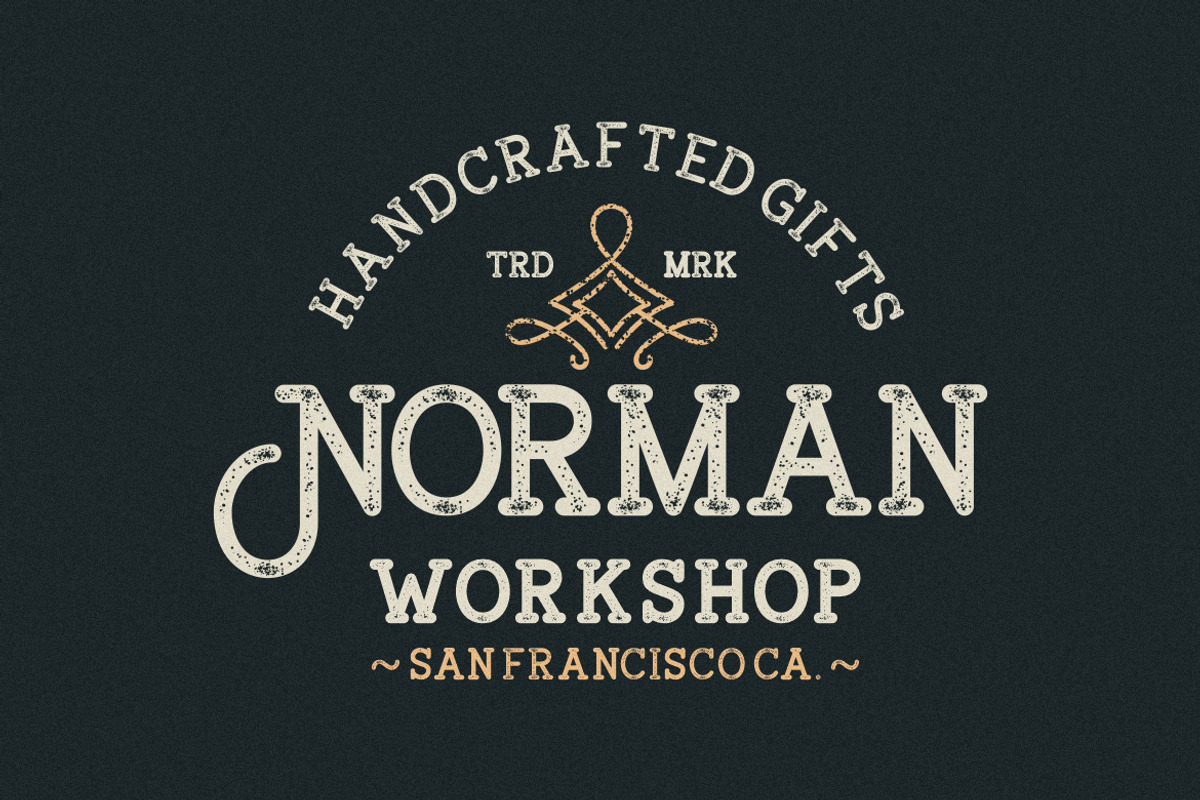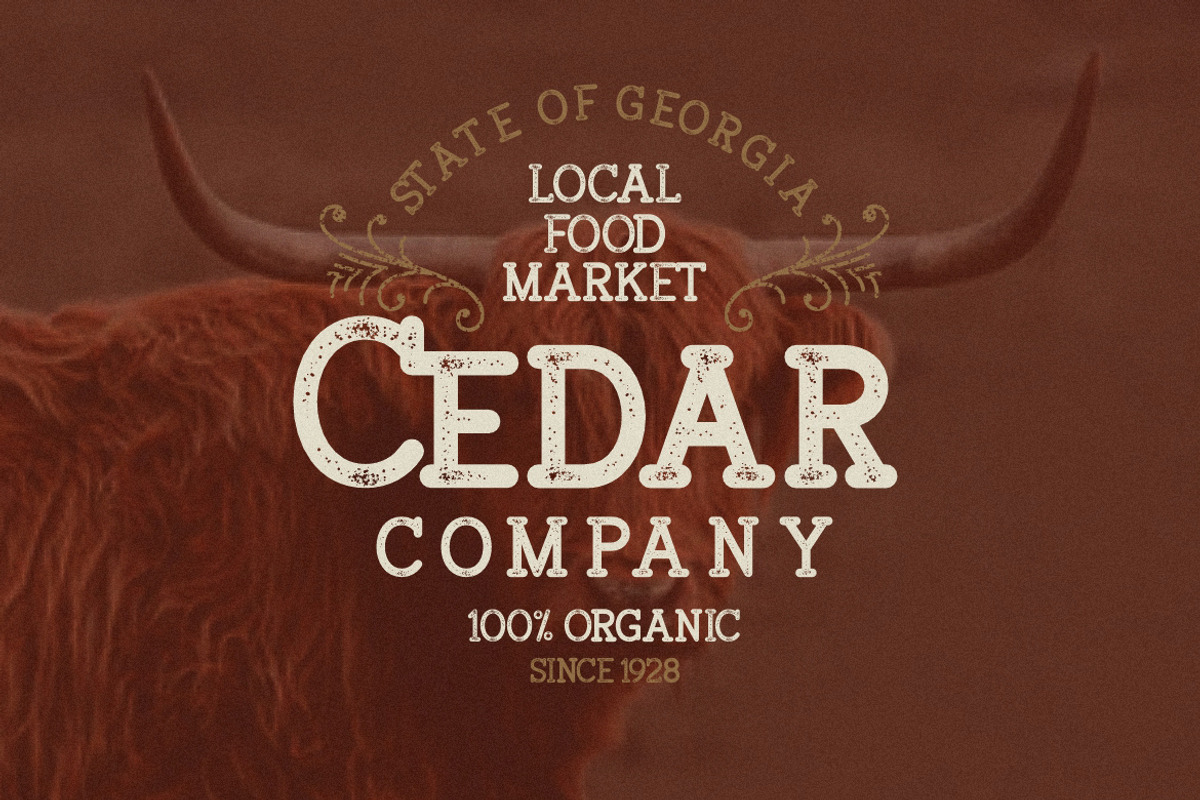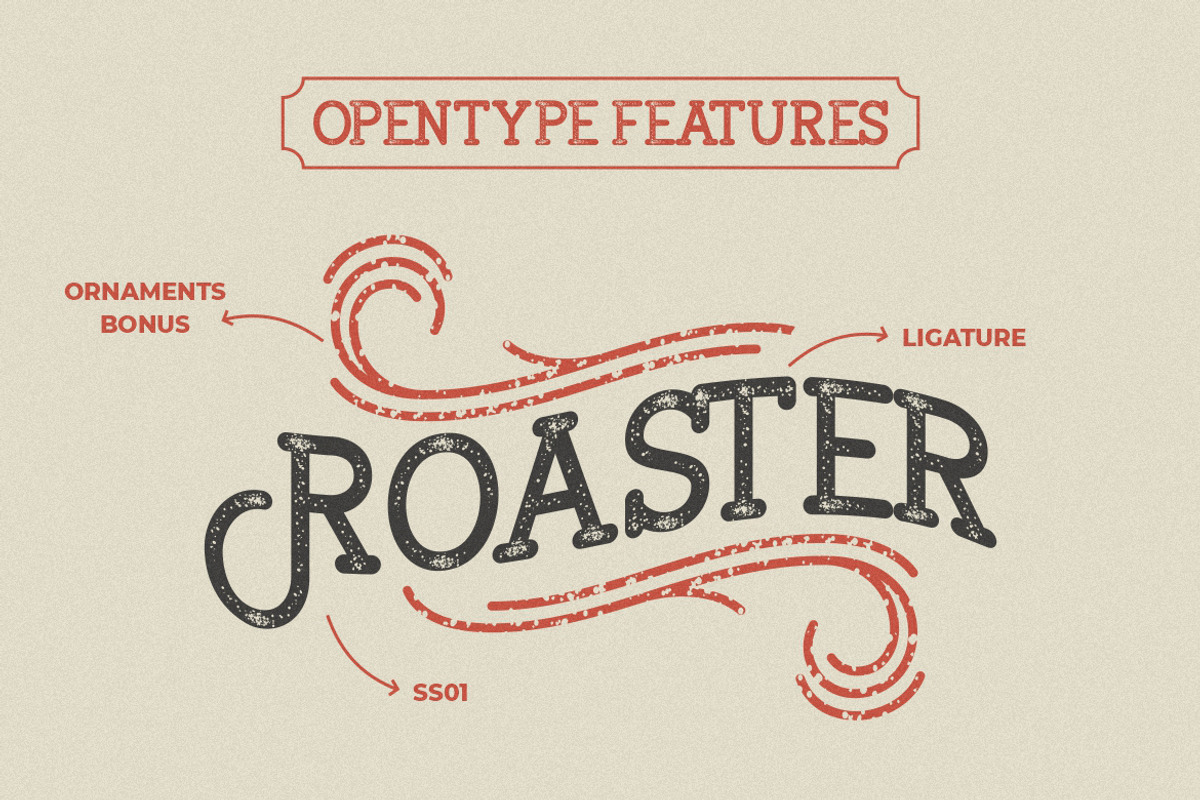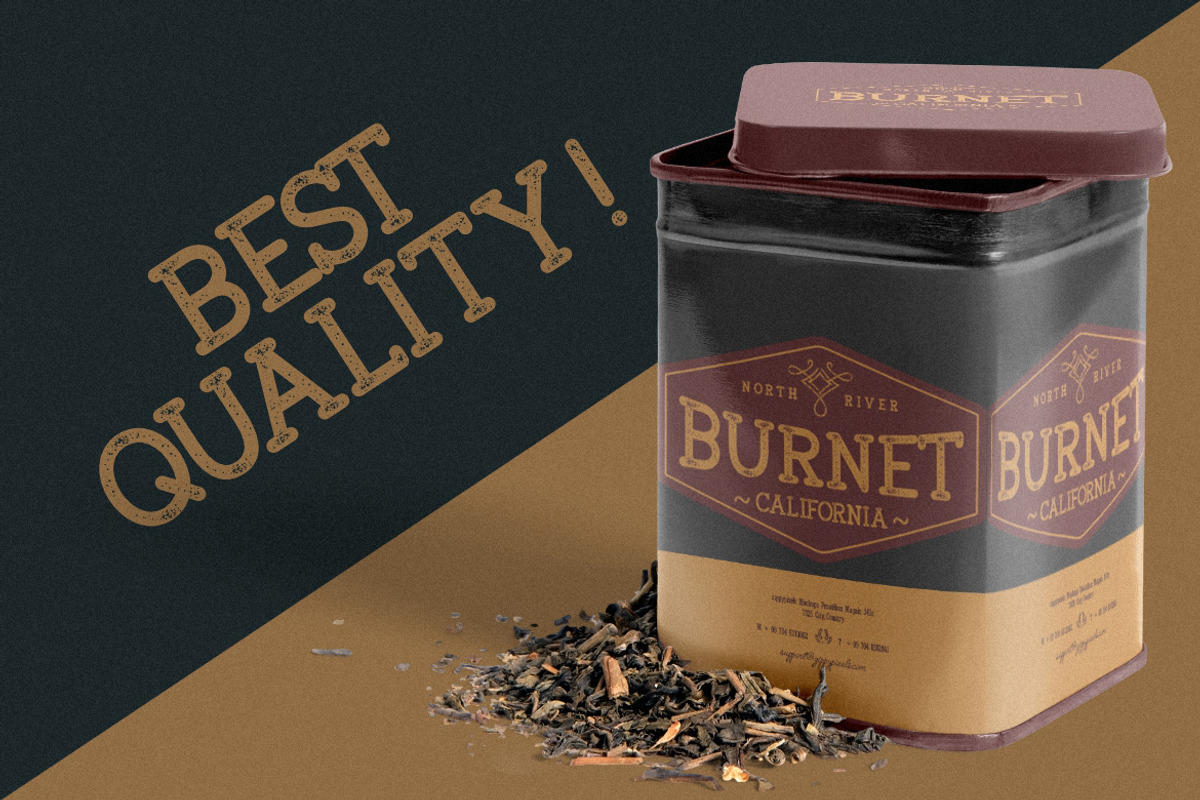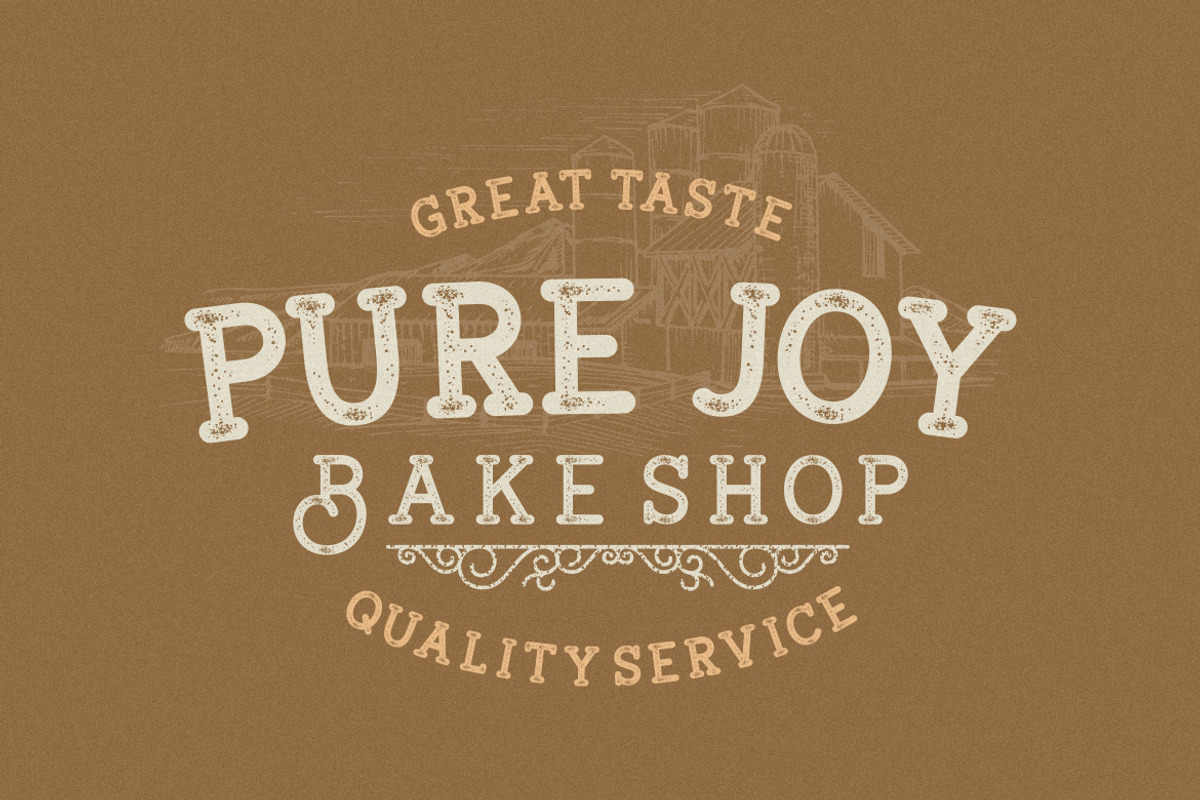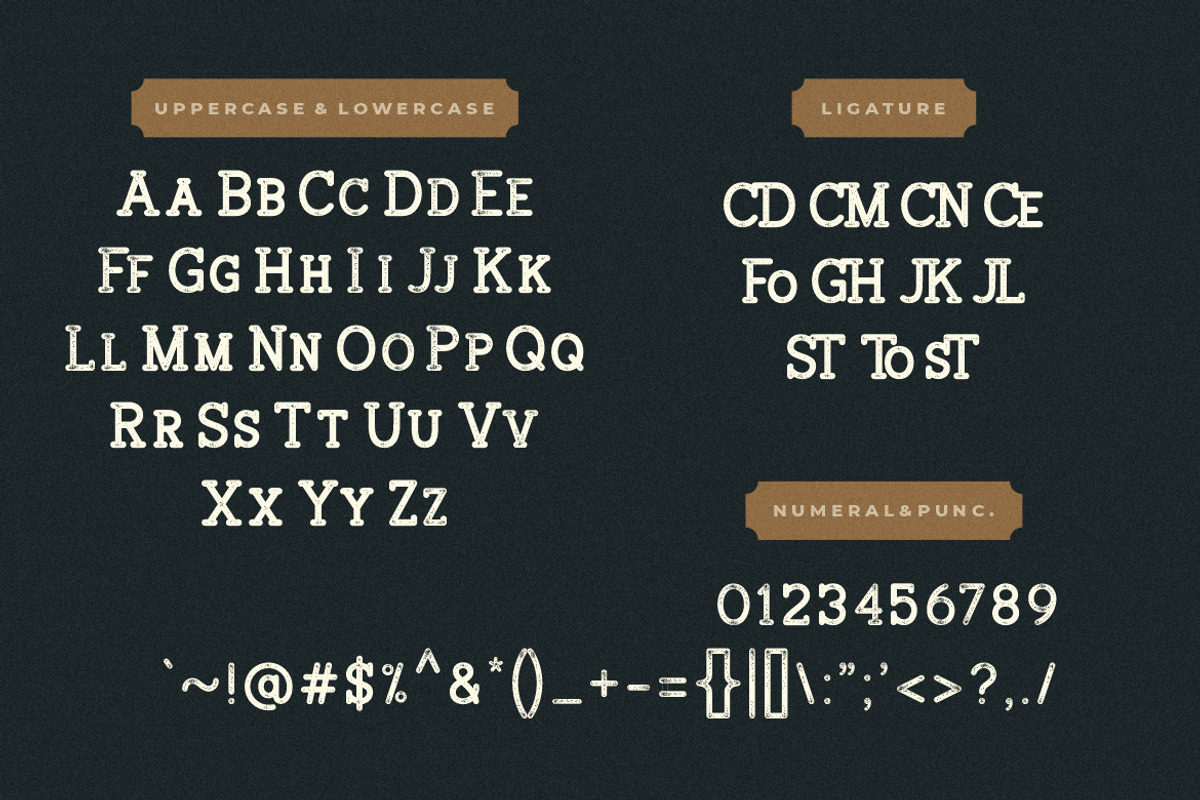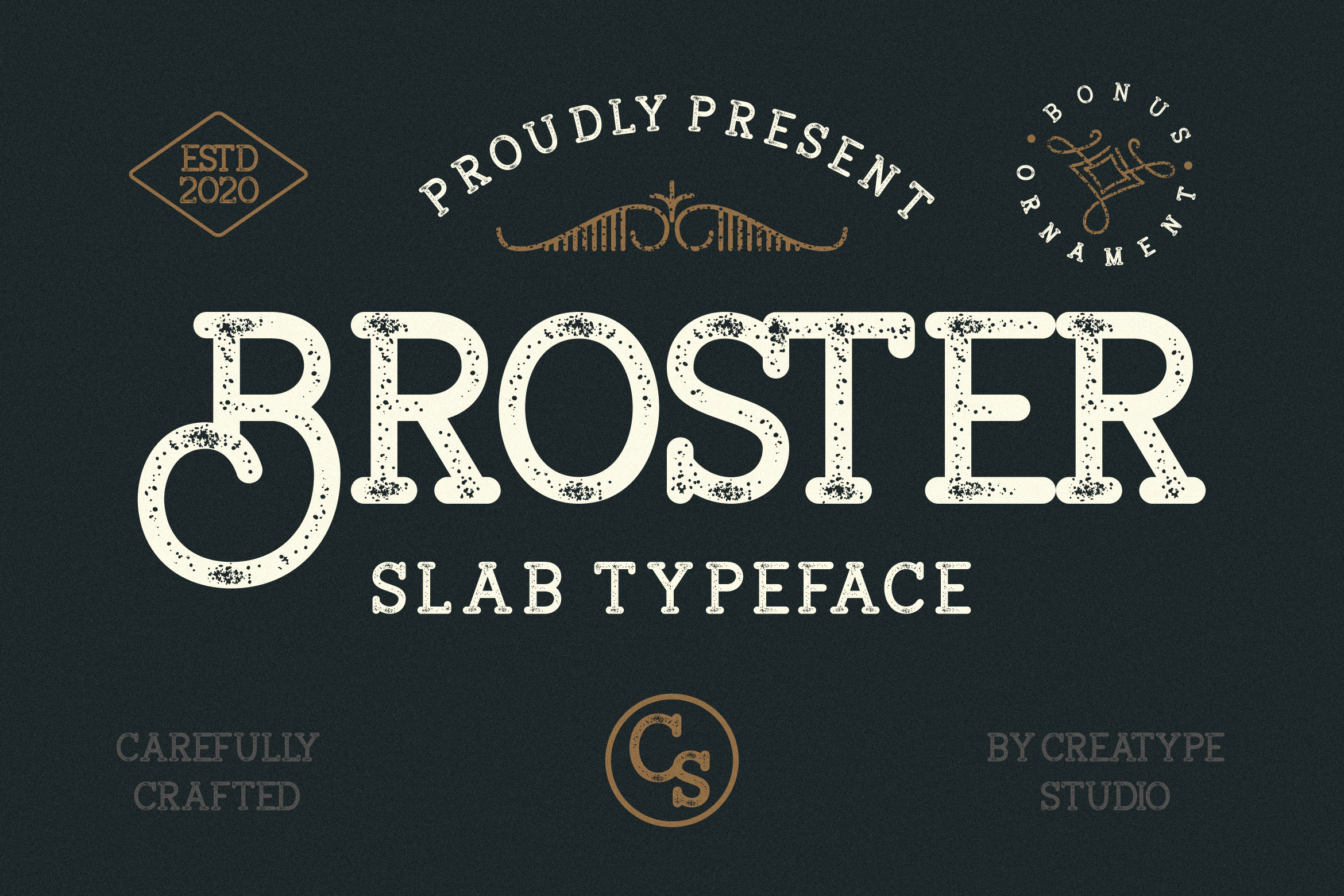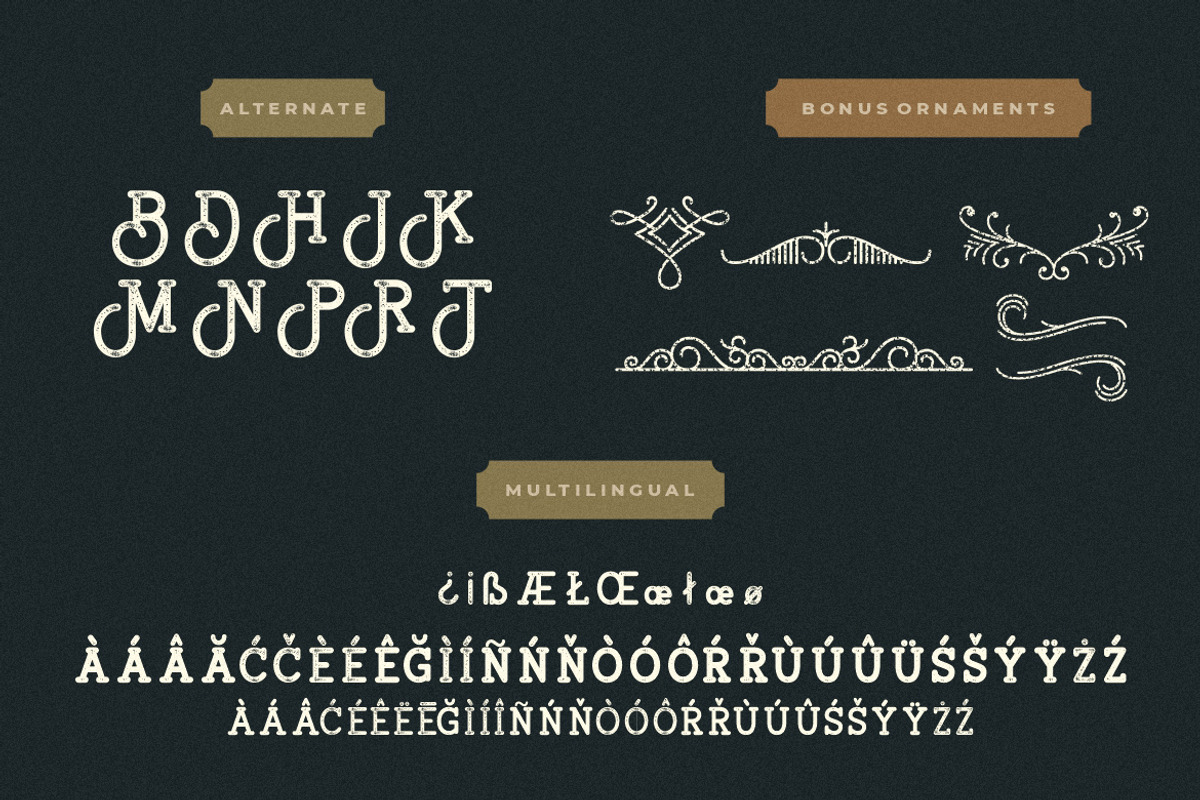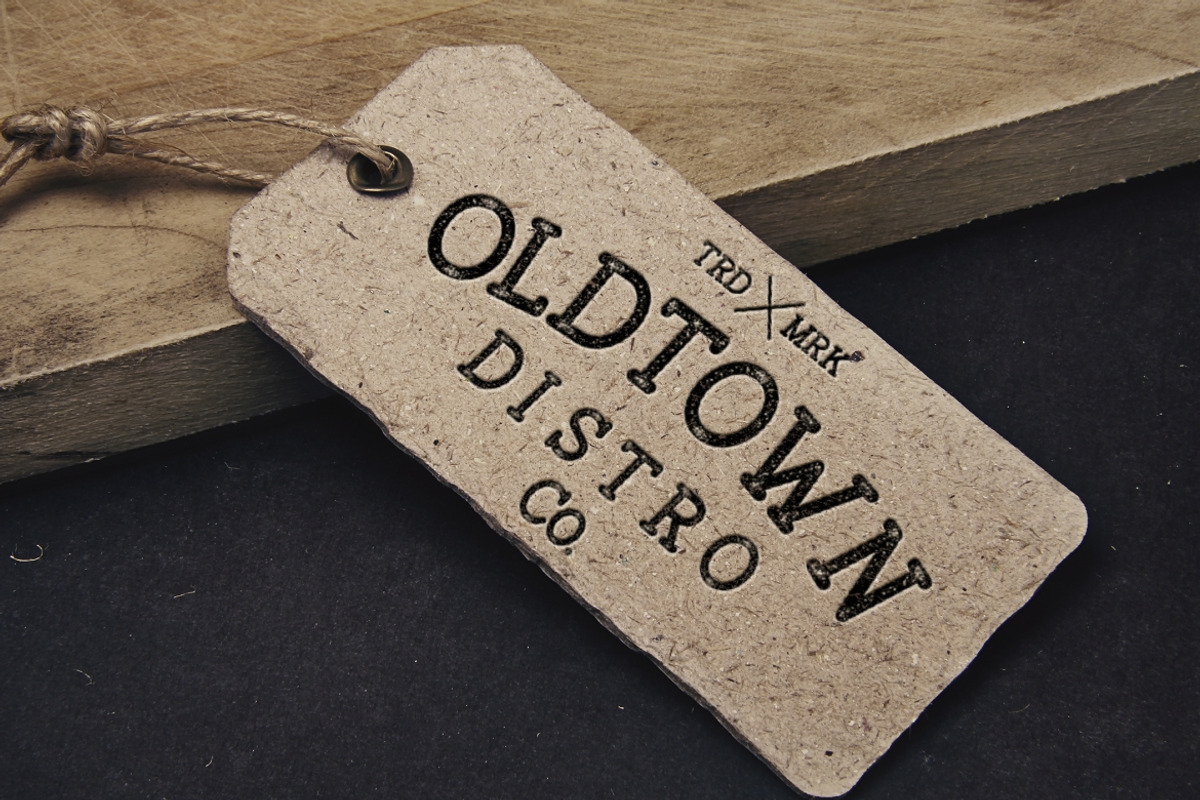
Broster Slab Typeface
Broster is a slab typeface with stamped looks and bonus ornament.
Broster is perfect for branding projects, logo, wedding designs, social media posts, advertisements, product packaging, product designs, label, photography, watermark, invitation, stationery and any projects that need handwriting taste.
- Bonus ornament illustrations
- Ligature & Alternate